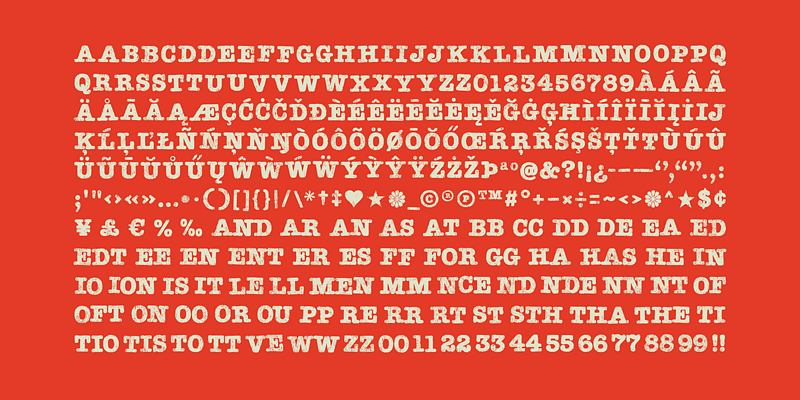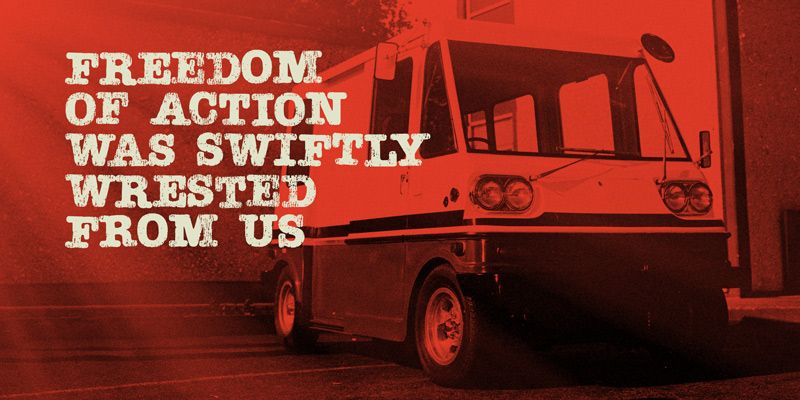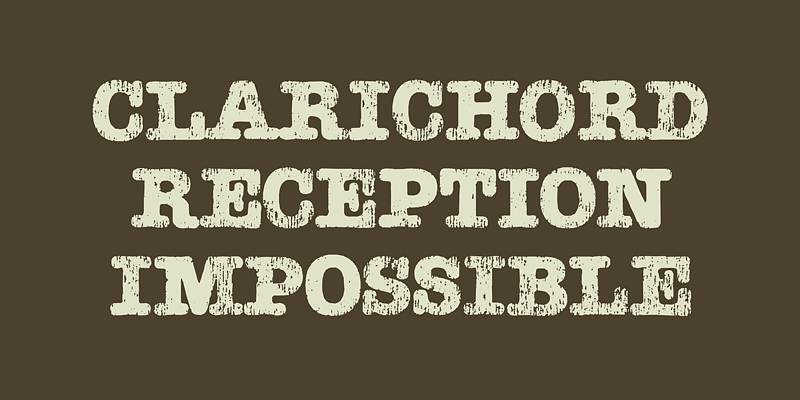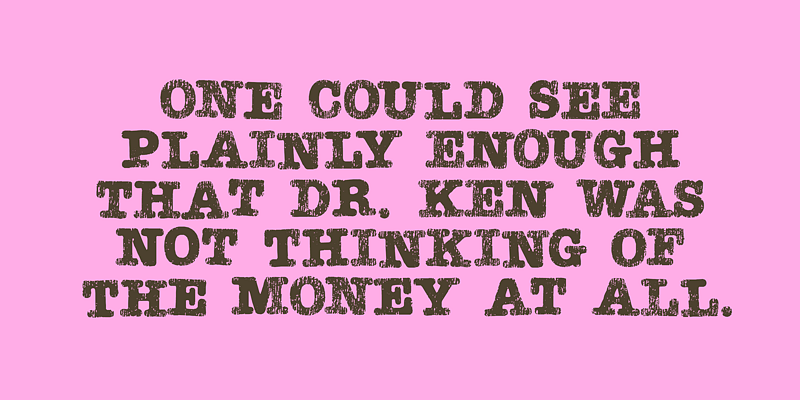
Teeshirt recalls the casual authority American Typewriter had in late-1970s and 1980s graphics, then gives that voice the worn surface of a garment print. Rounded slab forms, slight irregularity, and distressed ink help a new phrase feel as though it has lived on cotton for years. It suits fictional tour shirts, record-store promotions, roller-rink graphics, summer-camp souvenirs, and period props that need the texture of everyday merchandise. Short names and slogans leave the soft typewriter influence visible beneath the wear. Its period mood comes from familiar printed objects rather than neon grids or polished chrome.